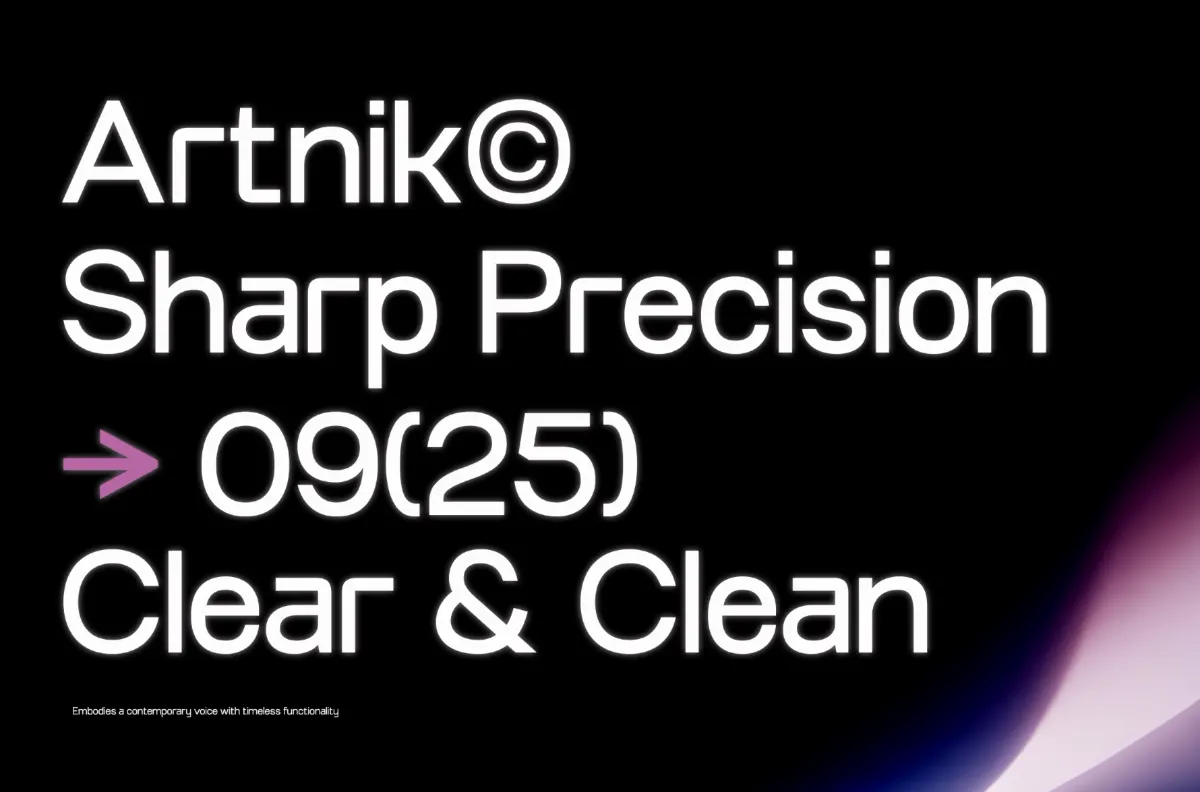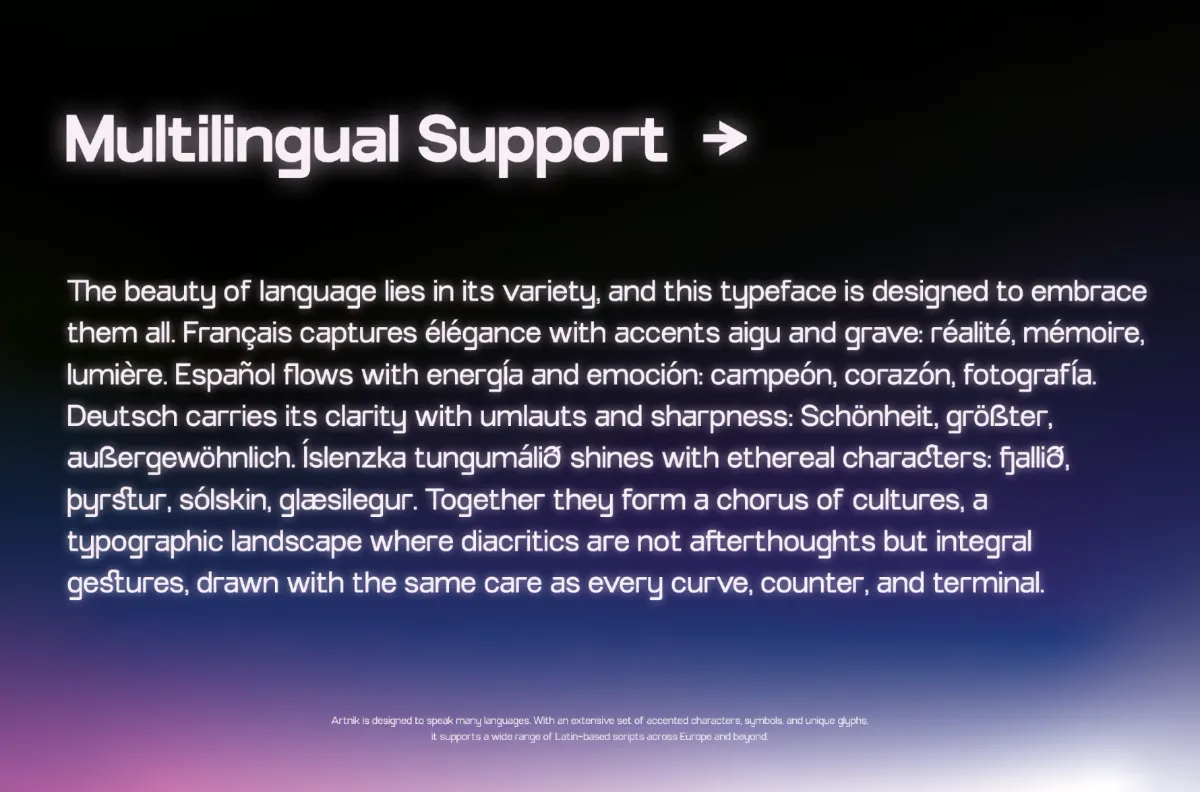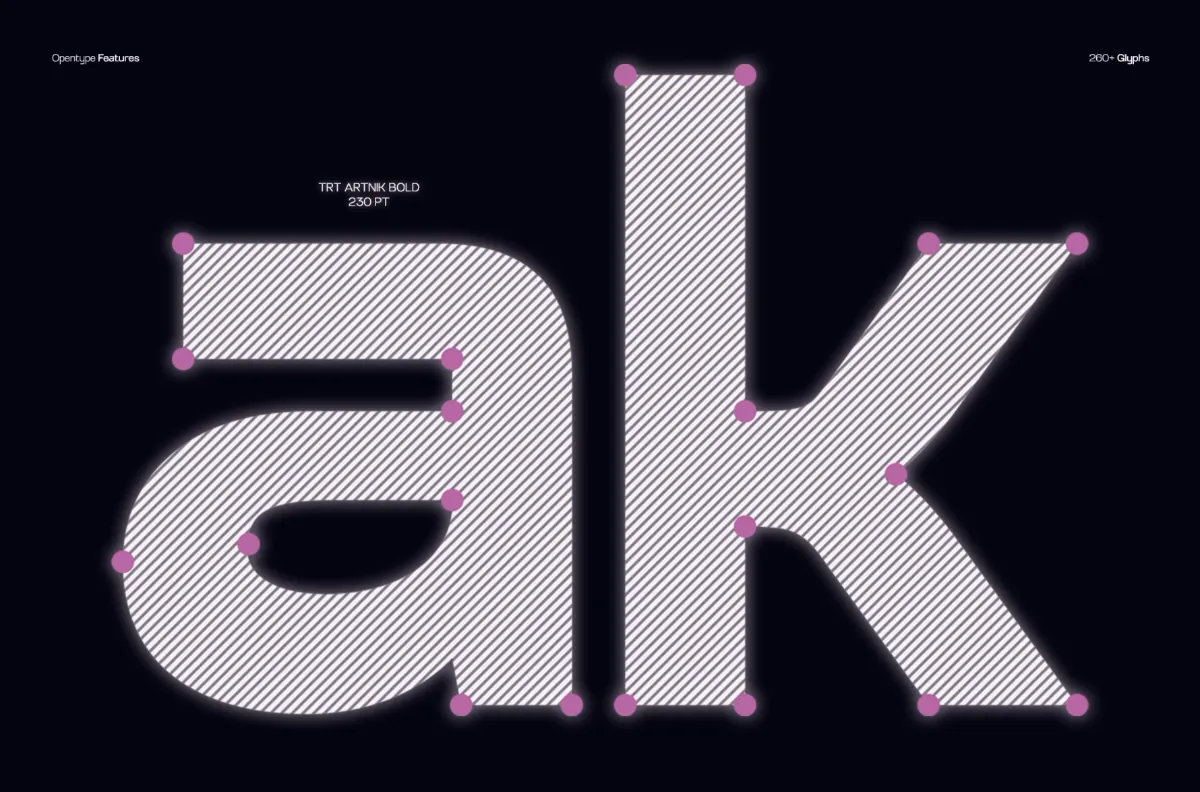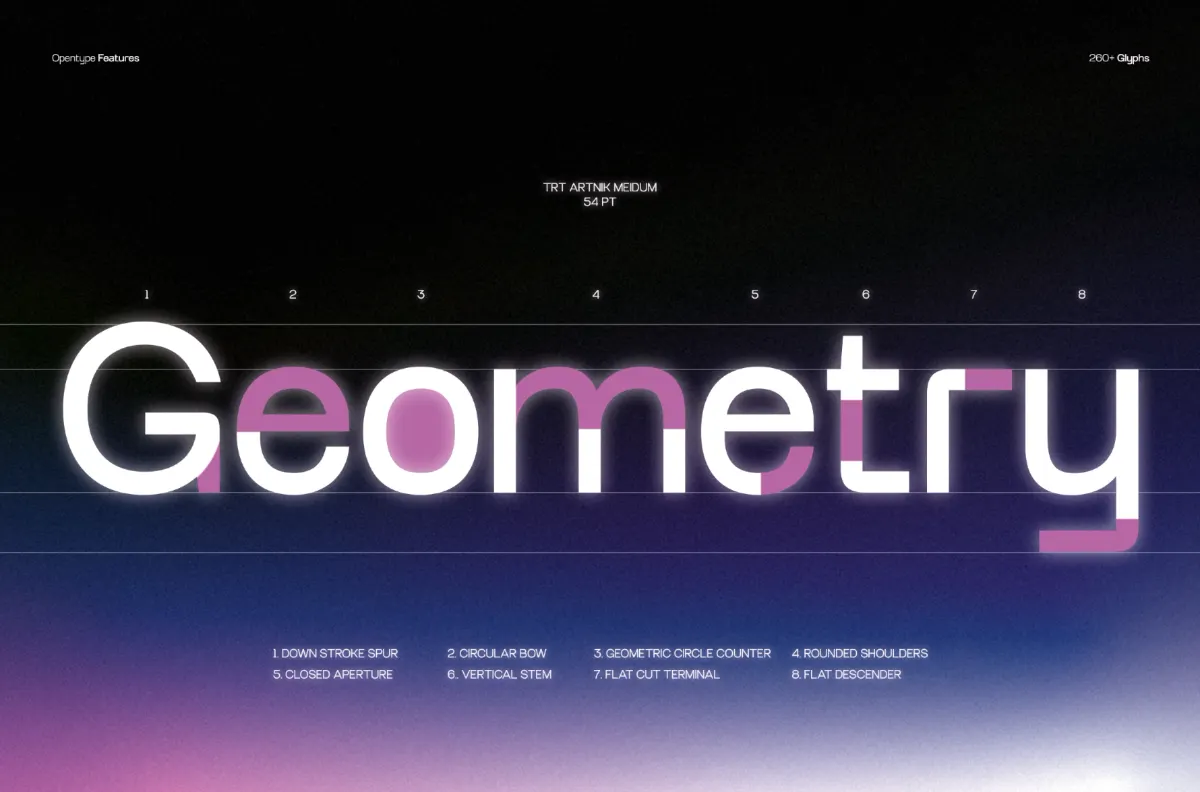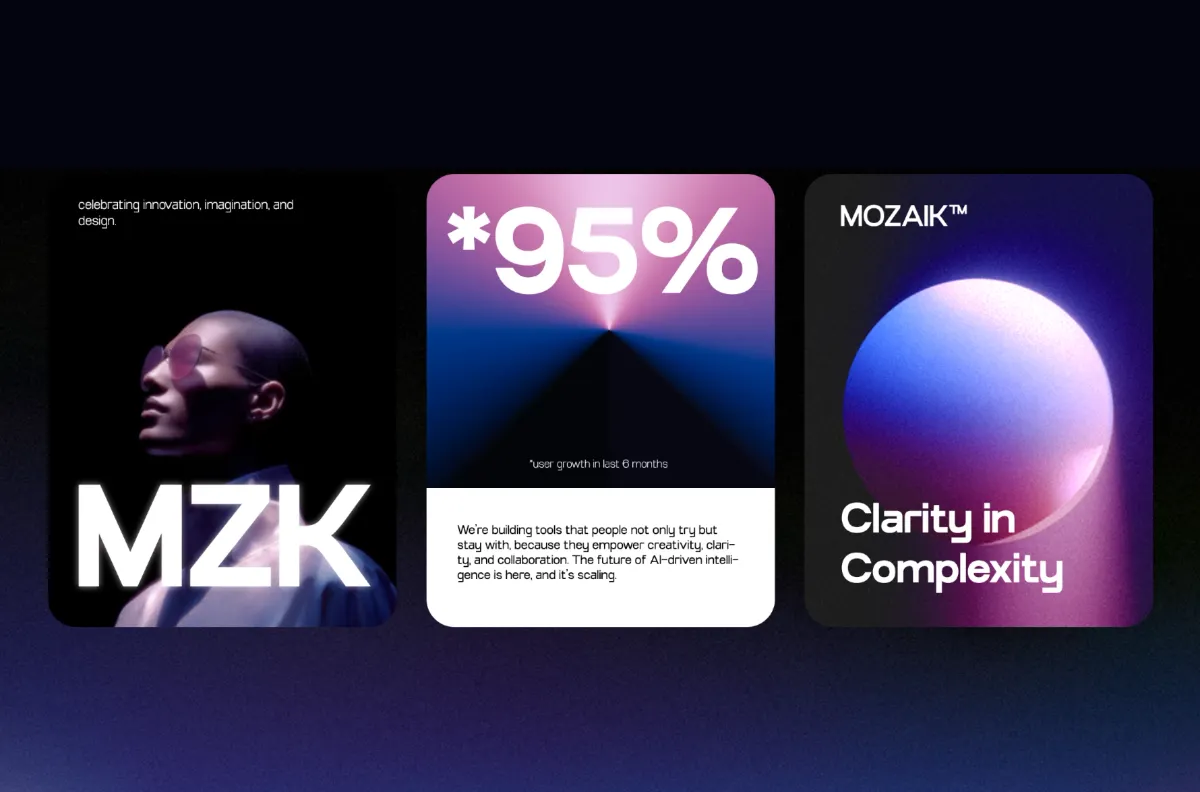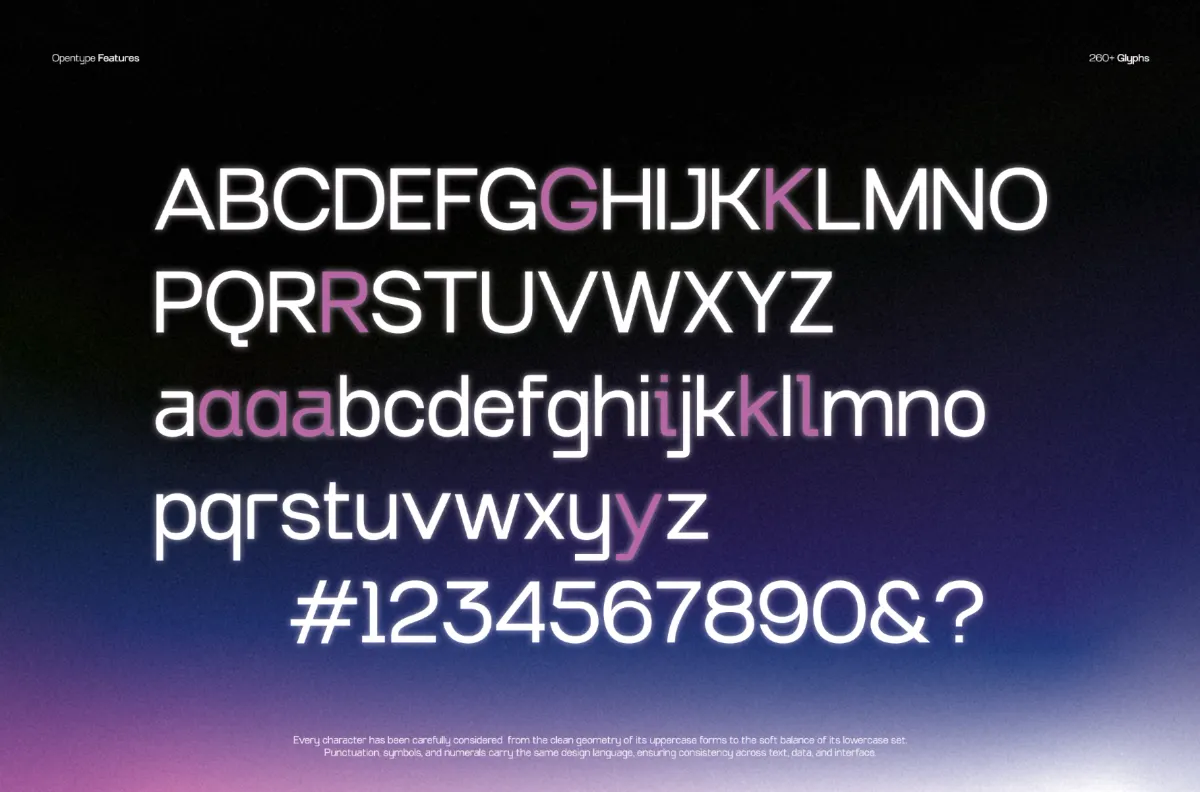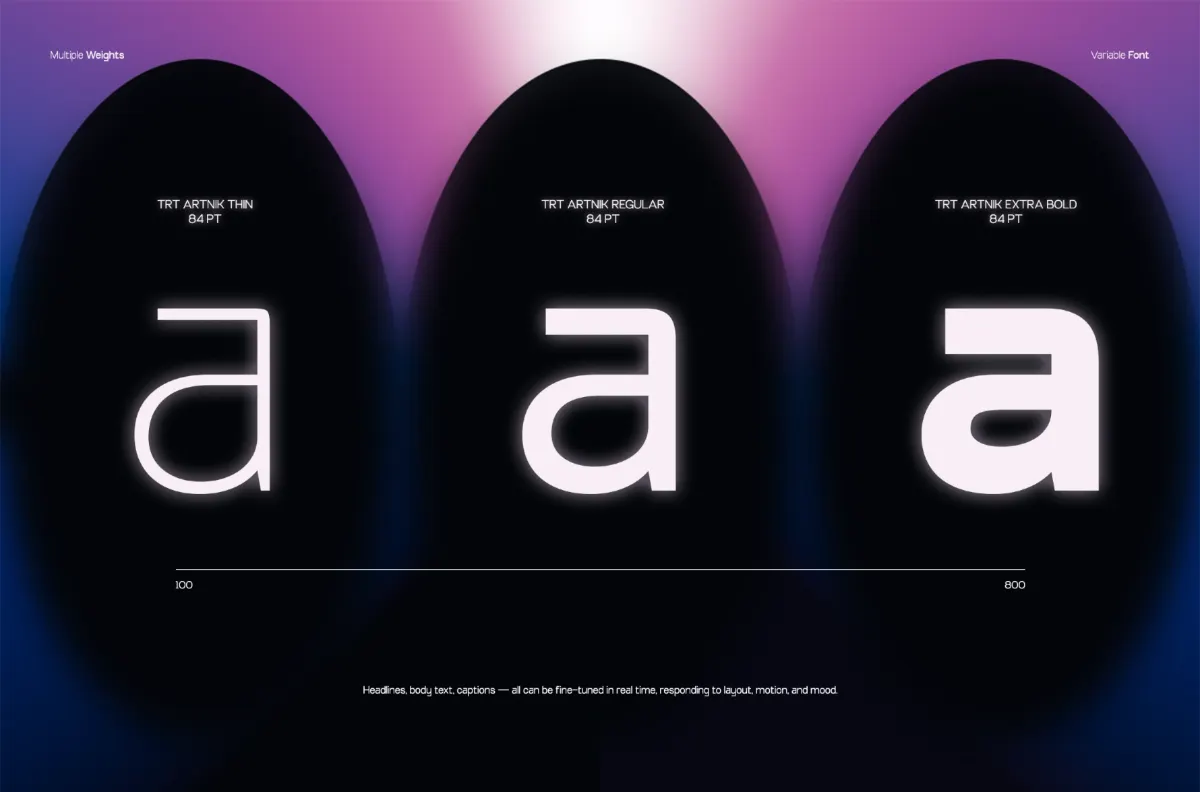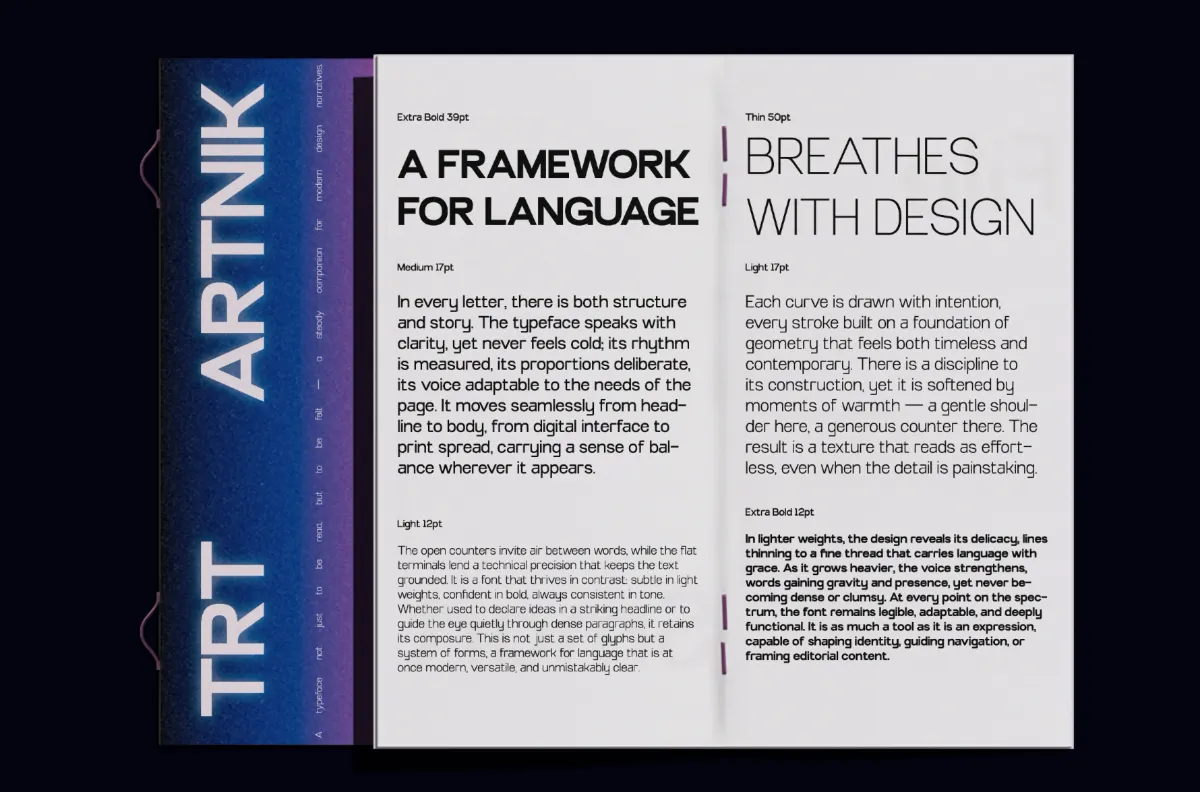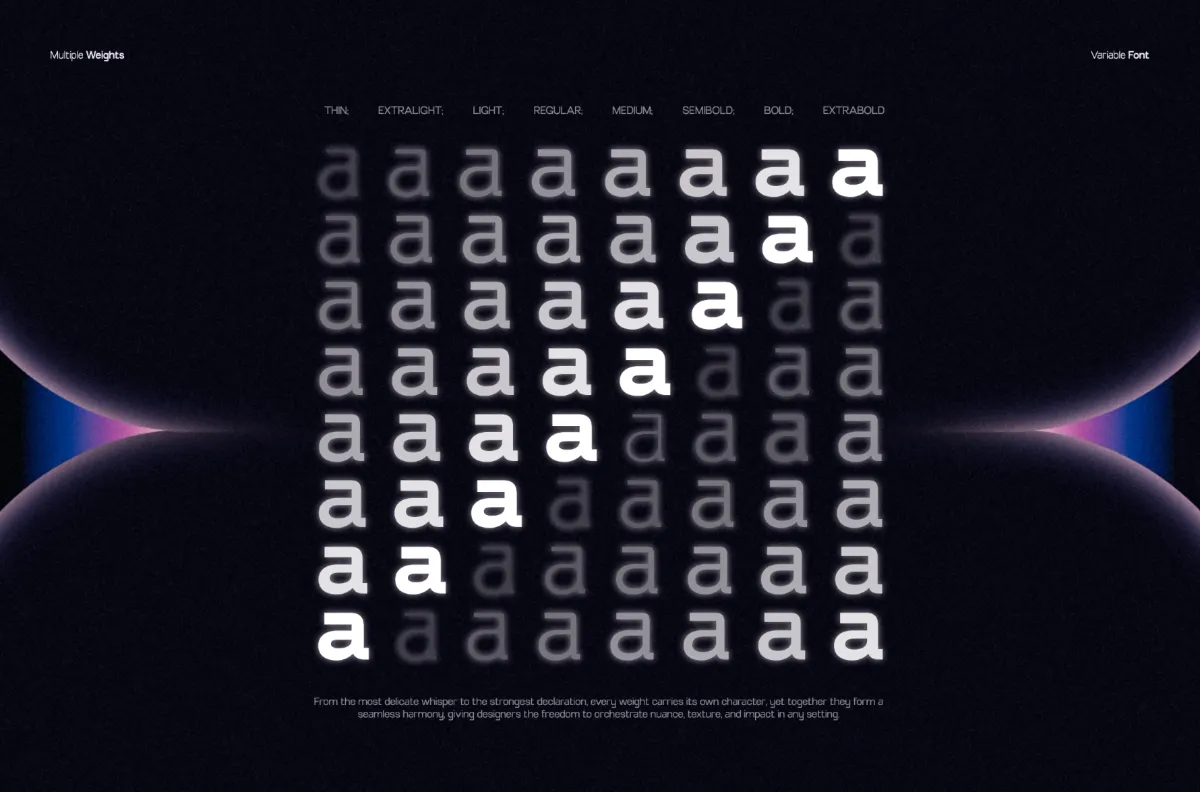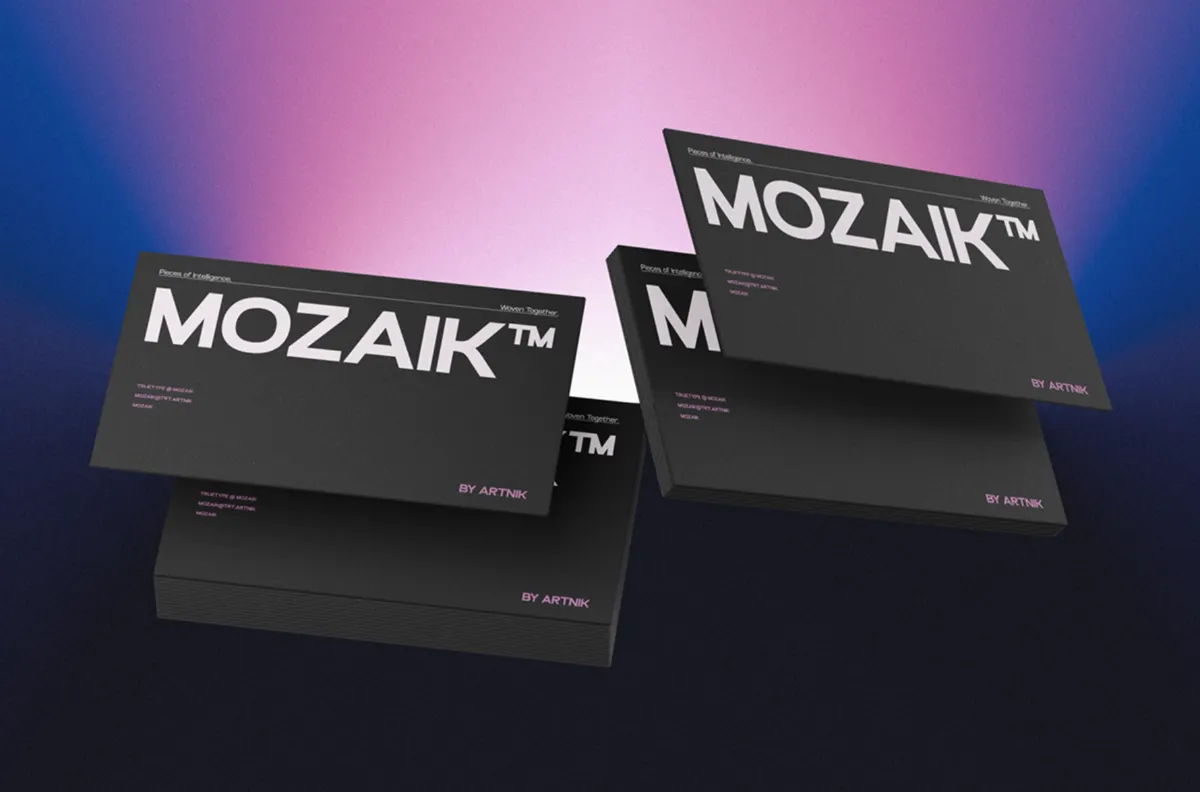
TRT Artnik - Modern Geometric Sans Font
Artnik builds on circles and straight lines the way classic geometric sans faces always have, then loosens that structure just enough to feel current: rounded shoulders, a closed aperture, subtle spurs that keep the letterforms from reading as cold or overly mechanical. Eight weights move from a hairline Thin to a dense Extra Bold without losing that balance between precision and warmth.
Alternate forms on several lowercase and uppercase characters give headlines room to shift character without switching fonts, while the structure stays legible enough for long-form and interface text. Use it for branding and visual identity, editorial headlines and pull quotes, packaging, and UI or product type.
• 8 styles: Thin, Extra Light, Light, Regular, Medium, Semi Bold, Bold, Extra Bold;
• Uppercase & Lowercase;
• Numerals, punctuation & symbols;
• Stylistic alternates across several characters, two additional stylistic sets, standard and discretionary ligatures, fractions, ordinals, superscript figures, kerning;